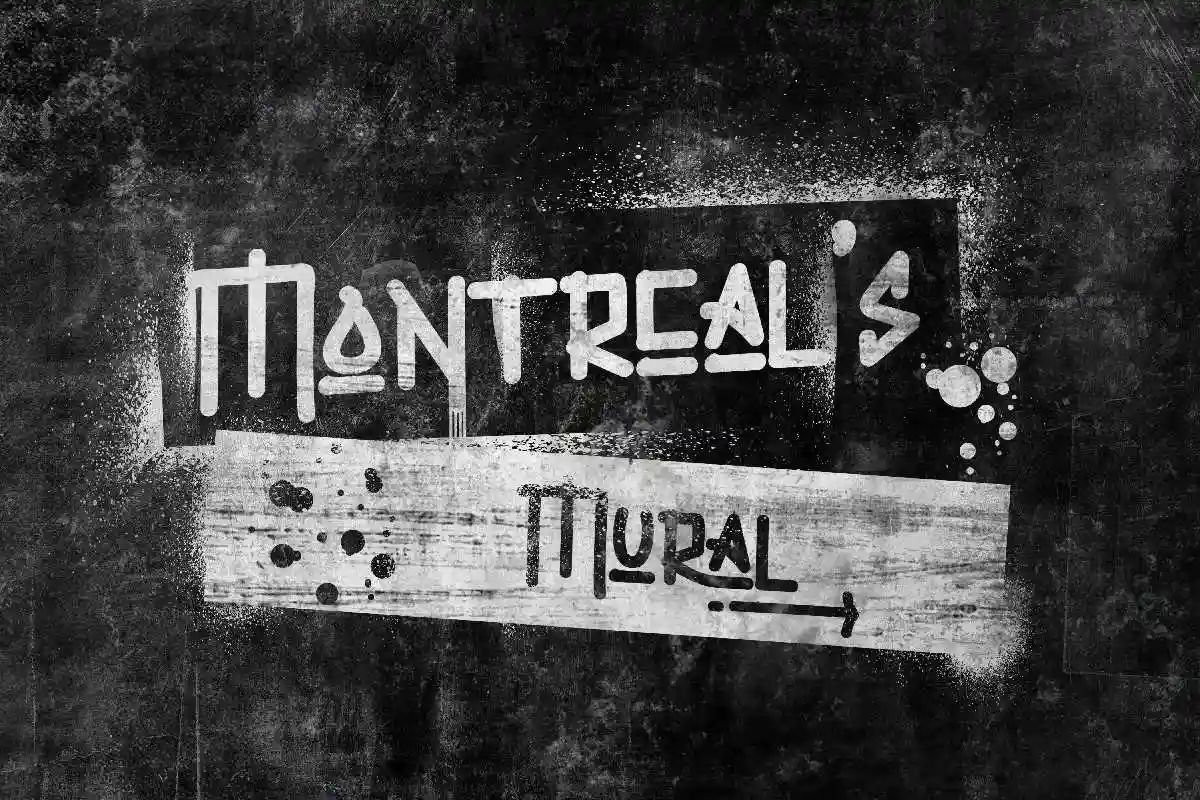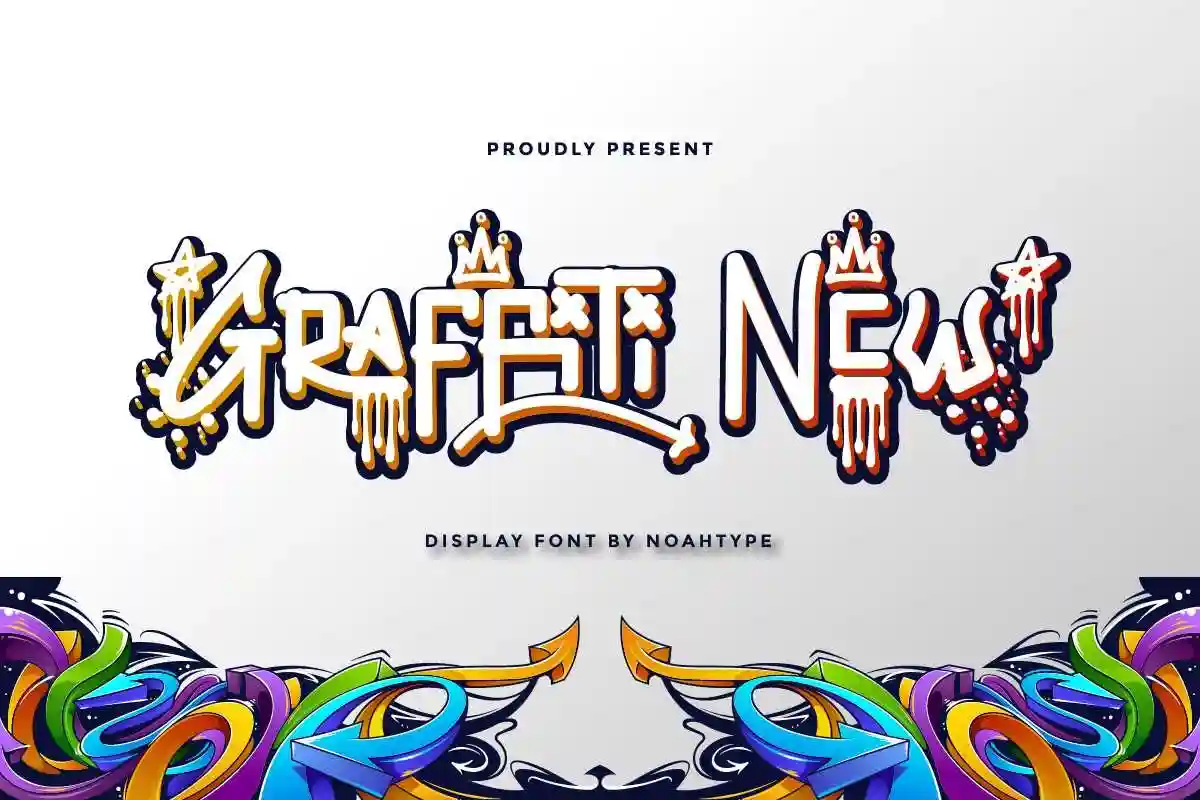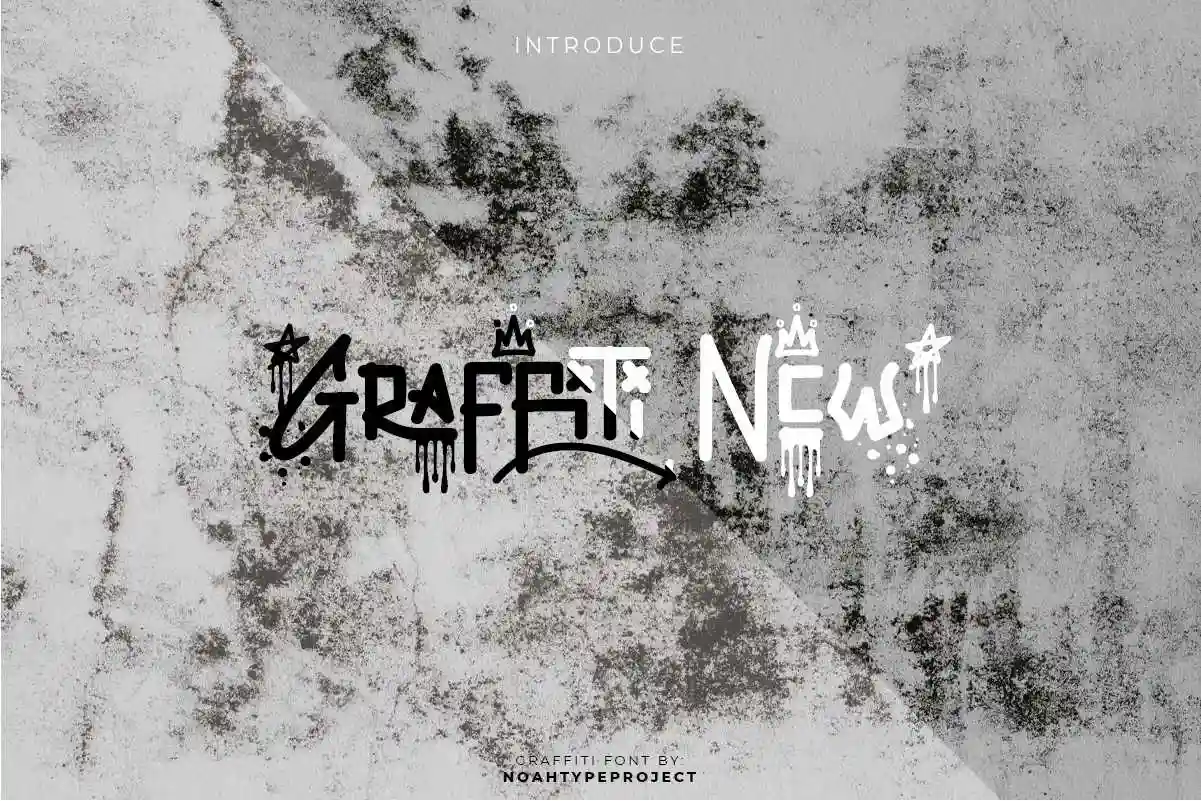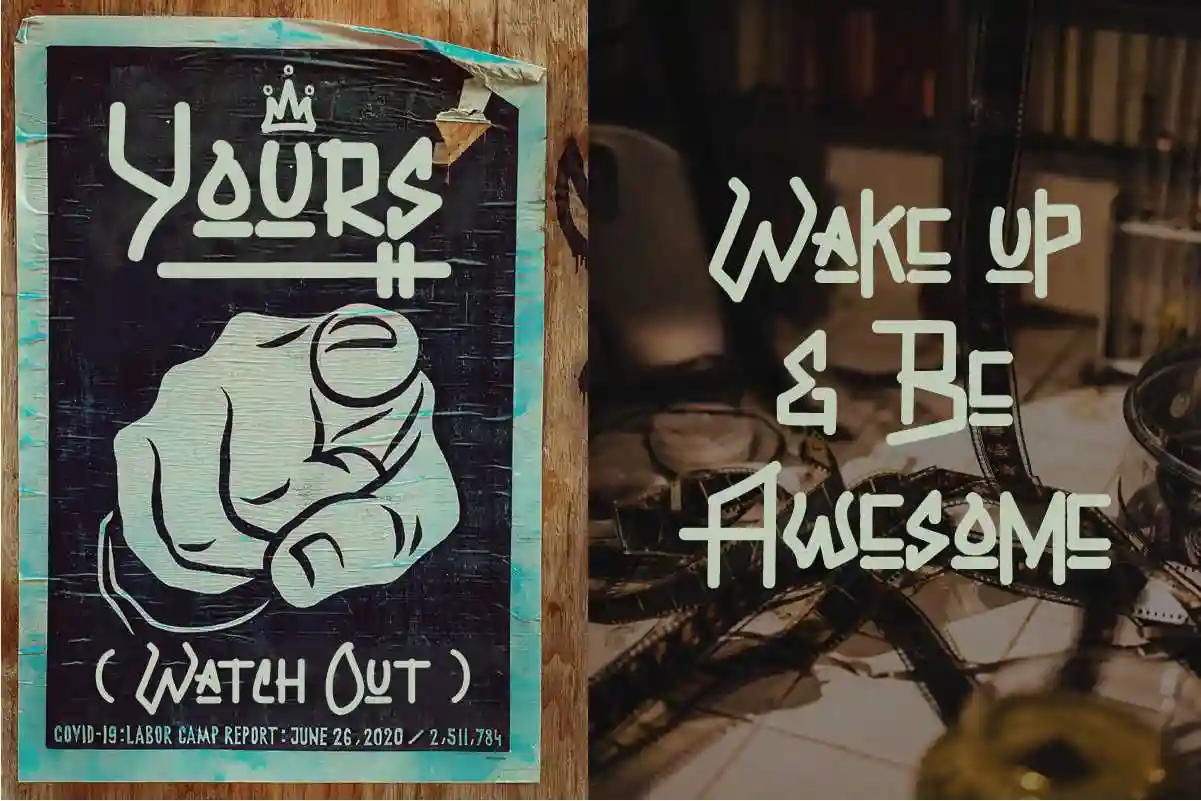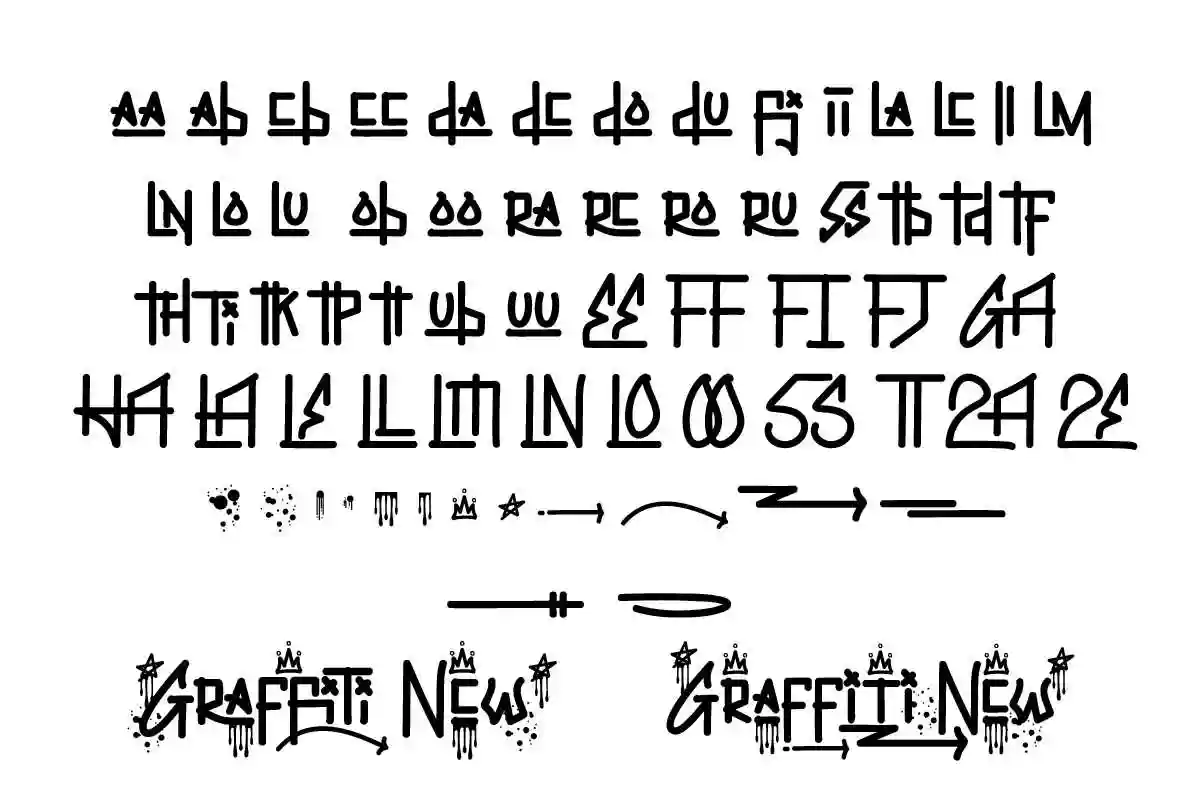
Graffiti New is a sans serif display font with mural street graffiti style. The font was inspired by mural street arts and classic artwork. It has a unique artistic graffiti style that will bring the authentic effect to the design. It will also works for games, band cover, horror, mysterious and any related things. Graffiti New Font includes full set of Uppercase and Lowercase Basic Characters, Numerals and Punctuation. Also it contains ligatures to make it awesome. You can also combine two or more styles on the text like we did on the cover, so you will great even more unique and special font. The font is perfect for many projects, headlines, logos, poster, tittle, products, etc